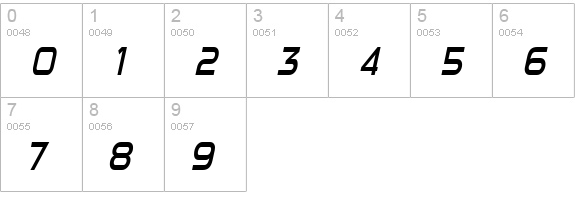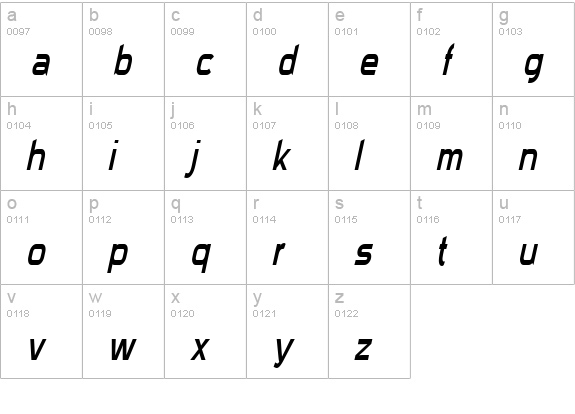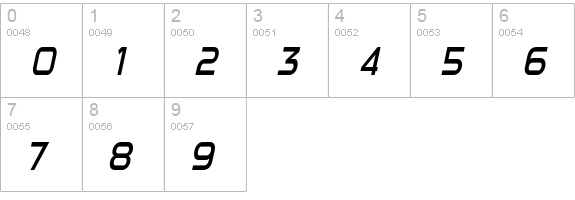
Sui Generis Condensed Light Italic Font Details
Sui Generis Condensed Light Italic is a refined, elegant, condensed-width, italic variant in the Sui typeface family \xE2\x80\x94 well suited to elegant body text, refined sub-headings, and luxury branding.
Sui Generis Condensed Light Italic font is a sleek and sophisticated typeface that exudes modern elegance. Its slender, italicized design adds a touch of flair and sophistication to any project. With its clean lines and unique styling, this font is perfect for creating a contemporary look in both print and digital designs. The best part? Sui Generis Condensed Light Italic font is available for free download at FontsMarket.com. You can easily add this versatile font to your collection without breaking the bank. Whether you're designing a website, creating a logo, or working on a branding project, this font is sure to elevate your work with its distinctive style and effortless charm. Don't miss out on the opportunity to enhance your designs with Sui Generis Condensed Light Italic font. Download it for free today and start creating eye-catching visuals that stand out from the crowd.